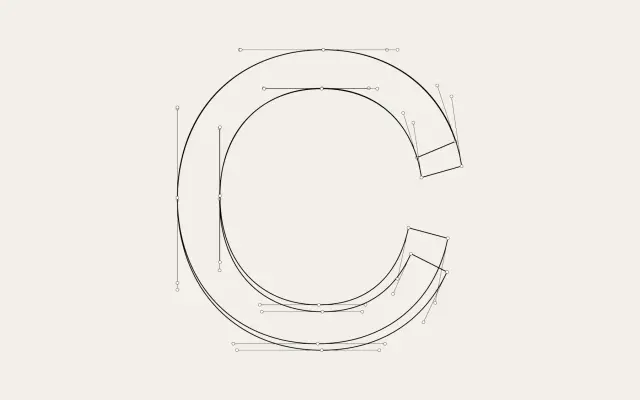
F37 Grotesc Text
F37 Foundry · Anaïs Lievens, Ryan Williamson, Rick Banks · 2021
The text cut of F37 Grotesc, optically balanced for body copy with the display family's overbite calmed down.
A text grotesque by Anaïs Lievens, Ryan Williamson and Rick Banks, the calmer optical sibling to F37 Grotesc. Fourteen styles span seven weights from Thin to ExtraBold with matching italics, keeping the Pica Sans and Breite Grotesk lineage of the display cut but with the overbite and quirkier letterforms dialled back for legibility at smaller sizes. Sits in editorial and brand systems where the display Grotesc handles headlines and the Text cut runs the article.
F37 describes Grotesc Text as the more legible, optically balanced text cut of F37 Grotesc, with the overbite and quirkier letterforms toned down to work at body sizes. Sits alongside the display F37 Grotesc.